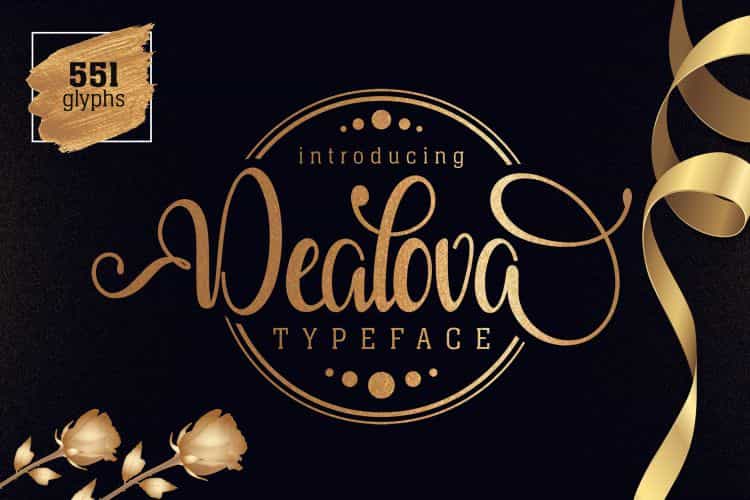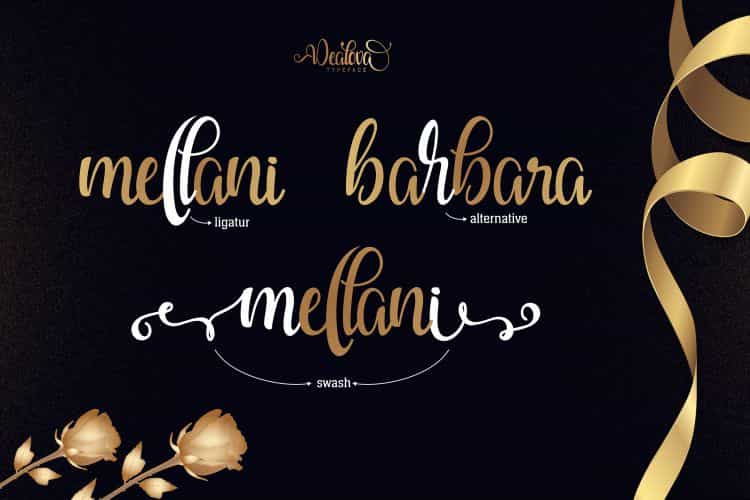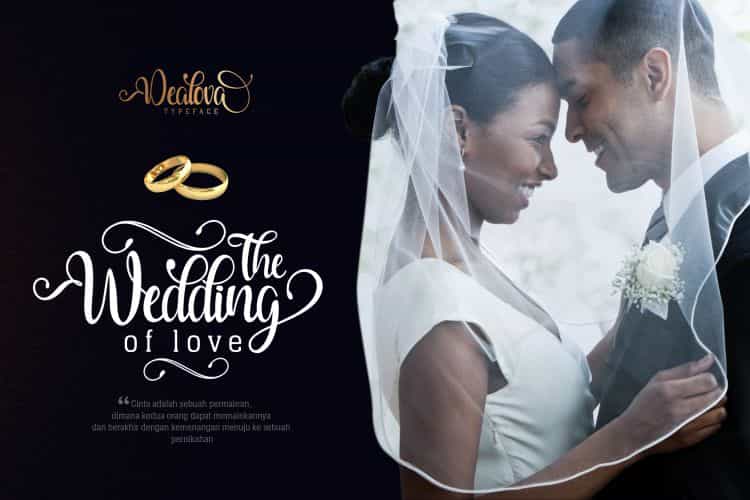
Begin a new day with the romantic calligraphy script font. Introducing Dealova Font. Dealova was created by afredo and then shared. fk. Dealova Script Font a new and fresh modern script with a handmade calligraphy style, decorative characters and a dancing baseline!Thus, it is lovely to put on the invitation card like greeting cards, branding materials, business cards and so on.